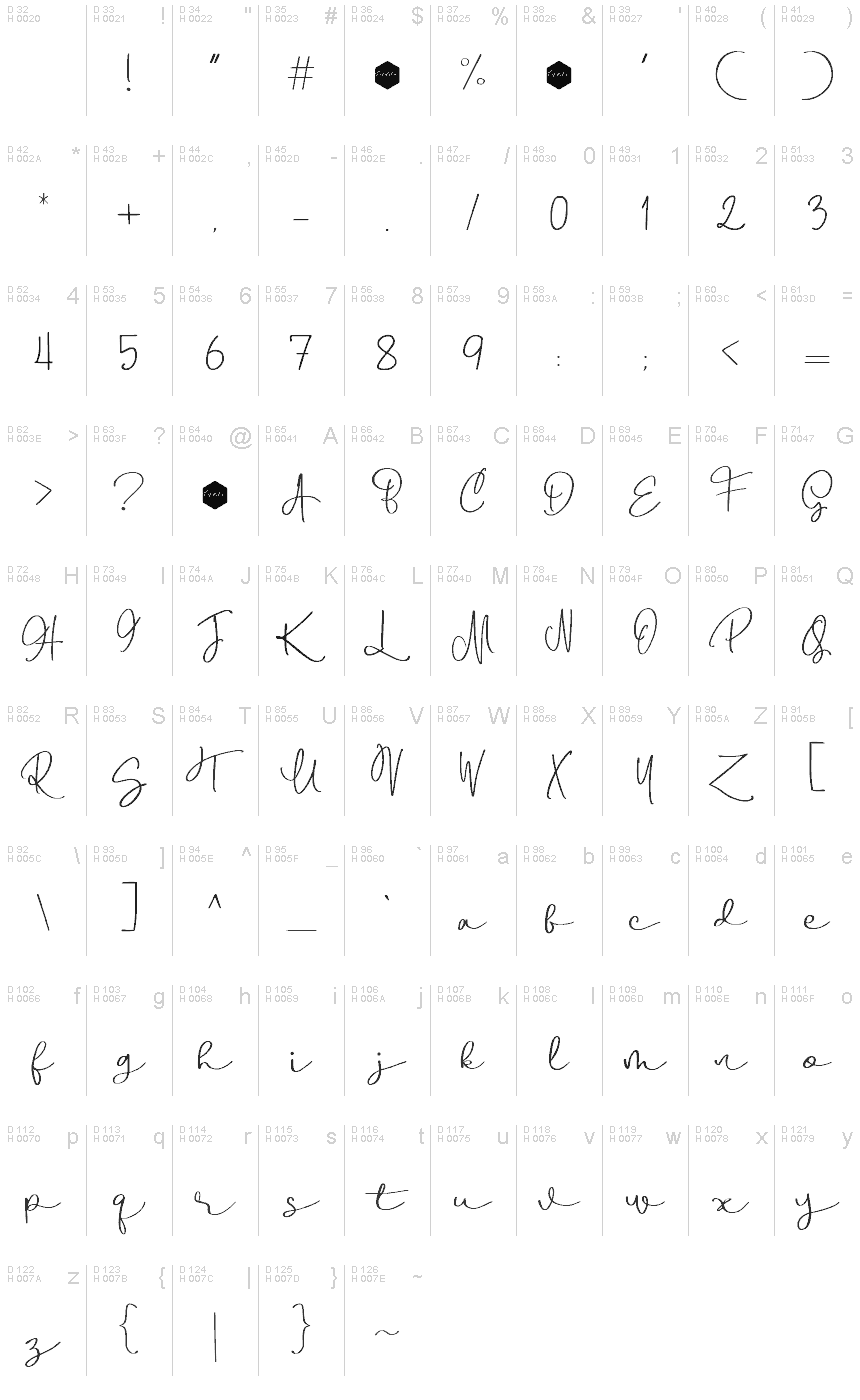
BoulevardScriptDEMO-Regular
Boulevard Font Duo is a handwritten romantic Script and hand lettered sans serif will give you a perfectly pair and suited for your beautiful wedding invitations, cards, stunning logos, quotes, even other awesome stuffs you created!
- Special ligatures
- Numbers and Punctuation
- Special underline swashes
For special underline swashes you can type --1, --2, --3, or --4 to display the underline after word. So fun and easy!